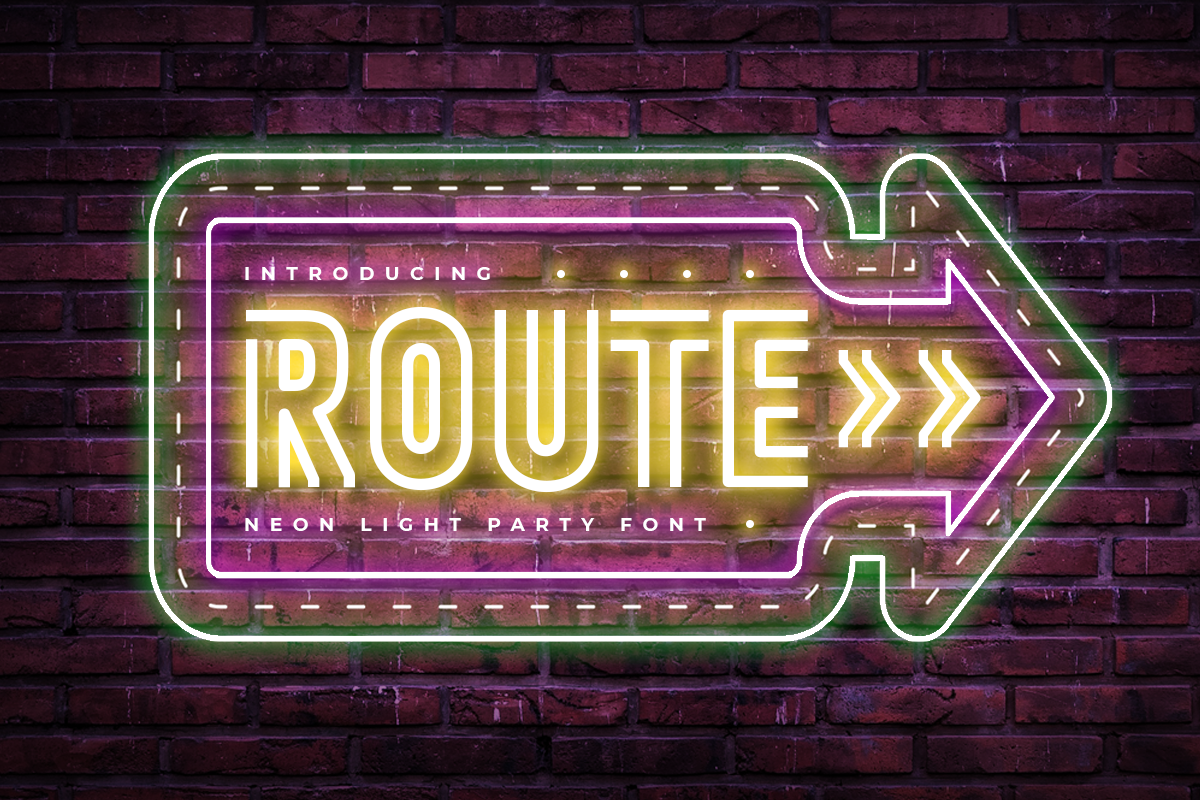
ROUTE - Neon Light Party Font
Create electrifying designs with ROUTE - the neon light party font that makes every headline pop with retro style. ROUTE is a display font crafted specifically for standout typography needs. Its unique inline neon design brings a modern yet nostalgic feel to any project, making it perfect for headlines, titles, and typography that demands attention. This distinctive typeface captures the essence of vintage neon signage while maintaining contemporary appeal, helping you showcase your creative vis...